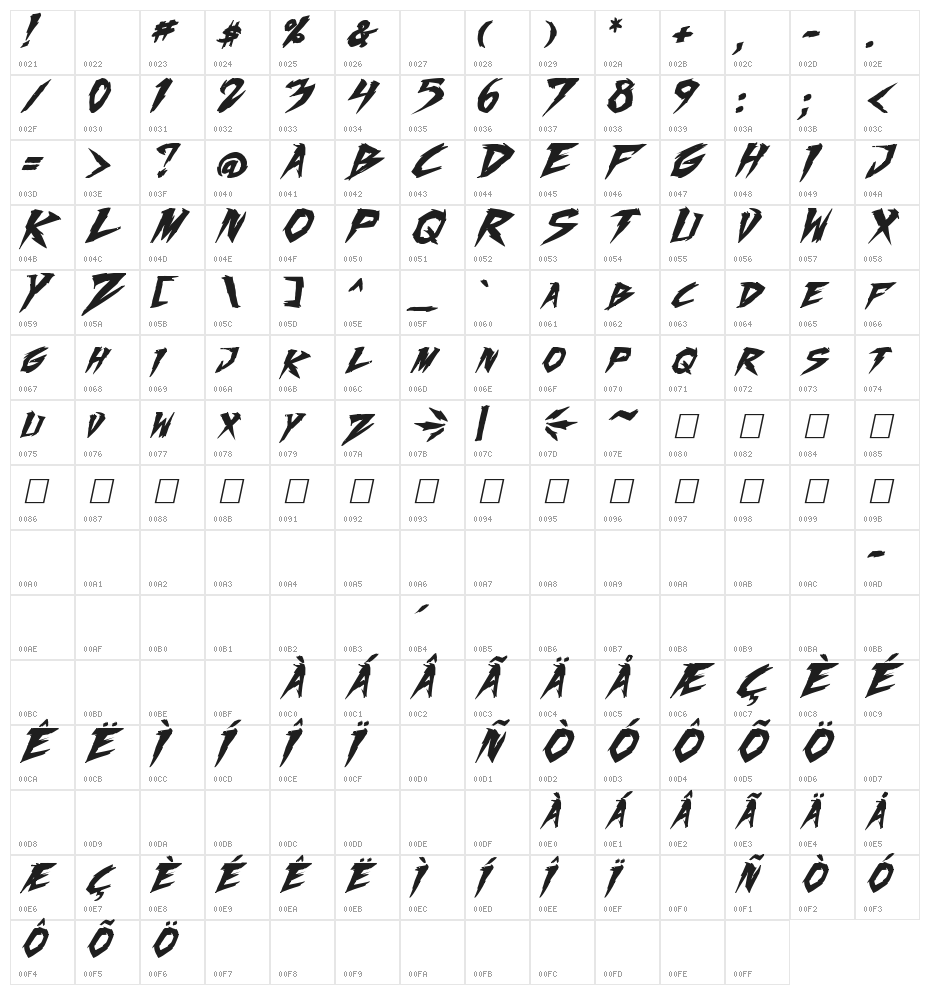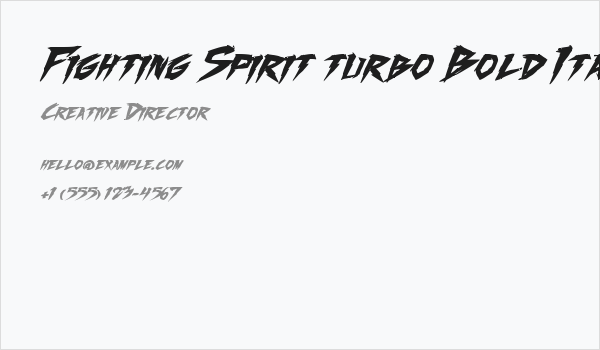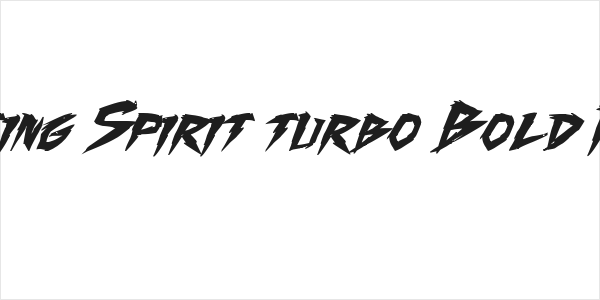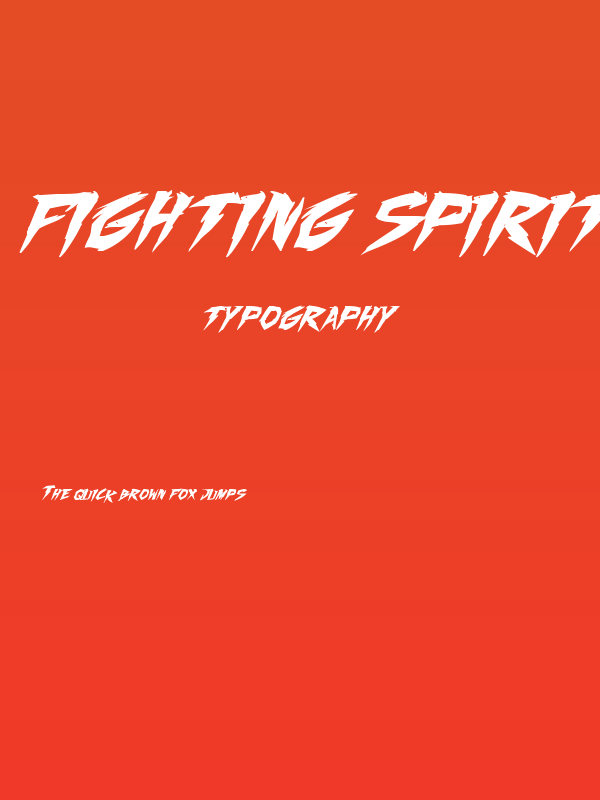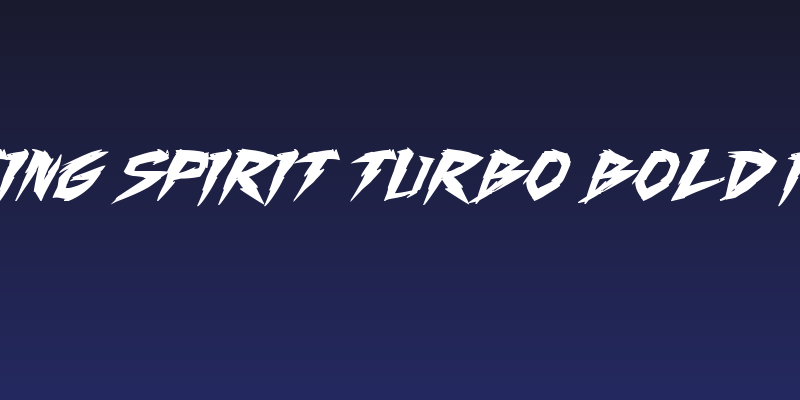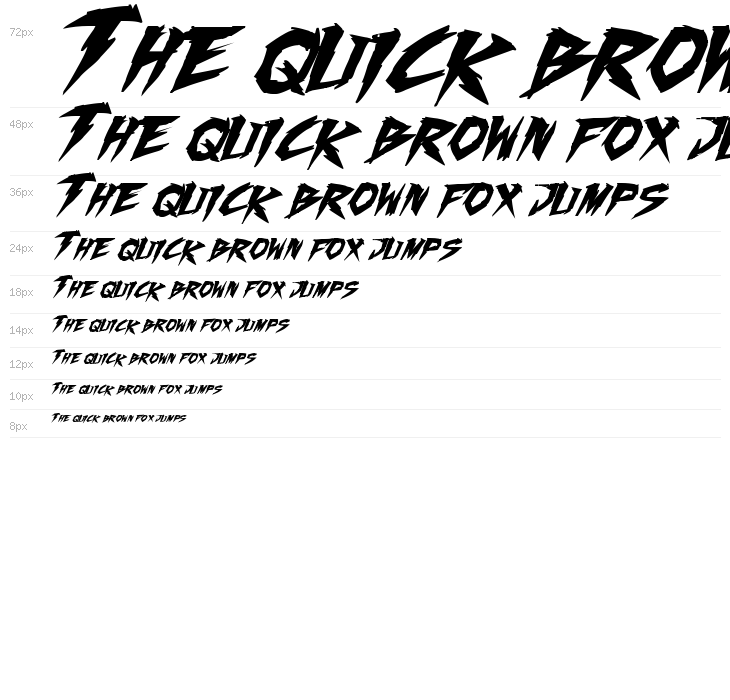
Fighting Spirit turbo Bold Italic Font
Fighting Spirit turbo Bold Italic Description
This font features a bold and dynamic style with sharp, angular edges and a strong italic slant. The characters are designed with a sense of movement and aggression, making them stand out with a powerful presence. The strokes are thick and uneven, giving a hand-drawn, energetic feel. The uppercase and lowercase letters maintain a consistent style, while the numbers and special characters complement the overall design. This font is ideal for projects that require a bold statement and a sense of action or intensity.
| Proposed Projects | Perfect for sports branding, action movie posters, video game titles, and dynamic event flyers. |